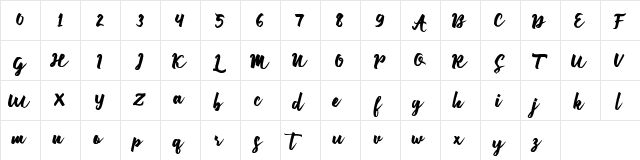
Enforce Justice Regular
Design Context for Enforce Justice Typeface
Enforce Justice brings high-energy athletic personality to the page — its confident, muscular forms are built for impact.
Built for sports team identities, athletic apparel, event posters, and high-energy promotional material.
Pro Tip: Enforce Justice thrives on contrast — try it large, bold, and tight against a clean background for maximum visual impact.